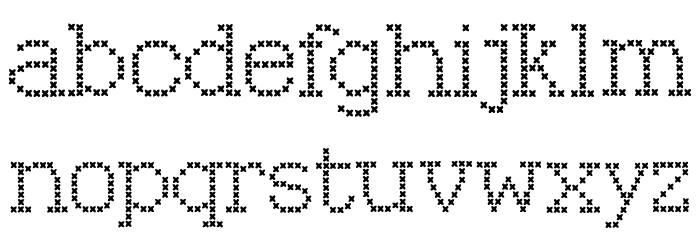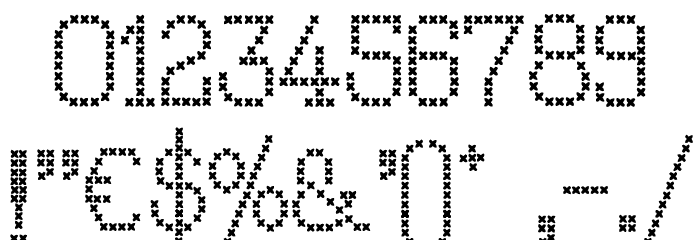
Kingthings Xstitch Font
This font features a unique cross-stitch pattern, giving it a handcrafted and textured appearance. Each character is composed of small 'x' shapes that mimic the look of traditional embroidery. The design is consistent across uppercase, lowercase, numbers, and special characters, maintaining a cohesive style. The font's playful and decorative nature makes it stand out, with a nostalgic feel reminiscent of handmade crafts. Its intricate detailing requires careful attention to ensure legibility, especially at smaller sizes.
A decorative font with a cross-stitch pattern, resembling traditional embroidery.
- Font: Kingthings Xstitch
- Proposed Projects: Ideal for craft-themed projects, DIY blogs, greeting cards, and any design requiring a handmade touch.
- Use Case: Logos, Headlines, Decorative text